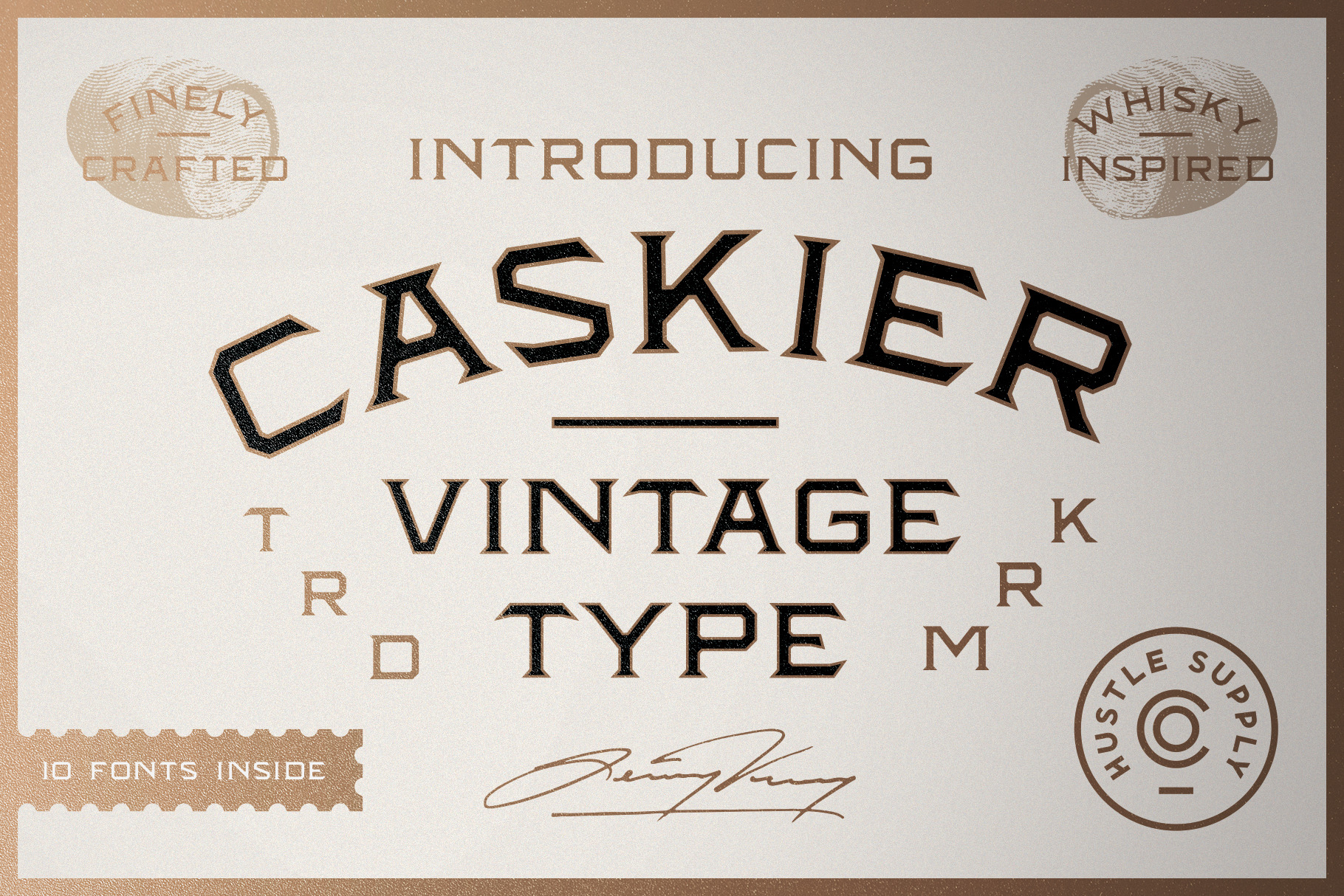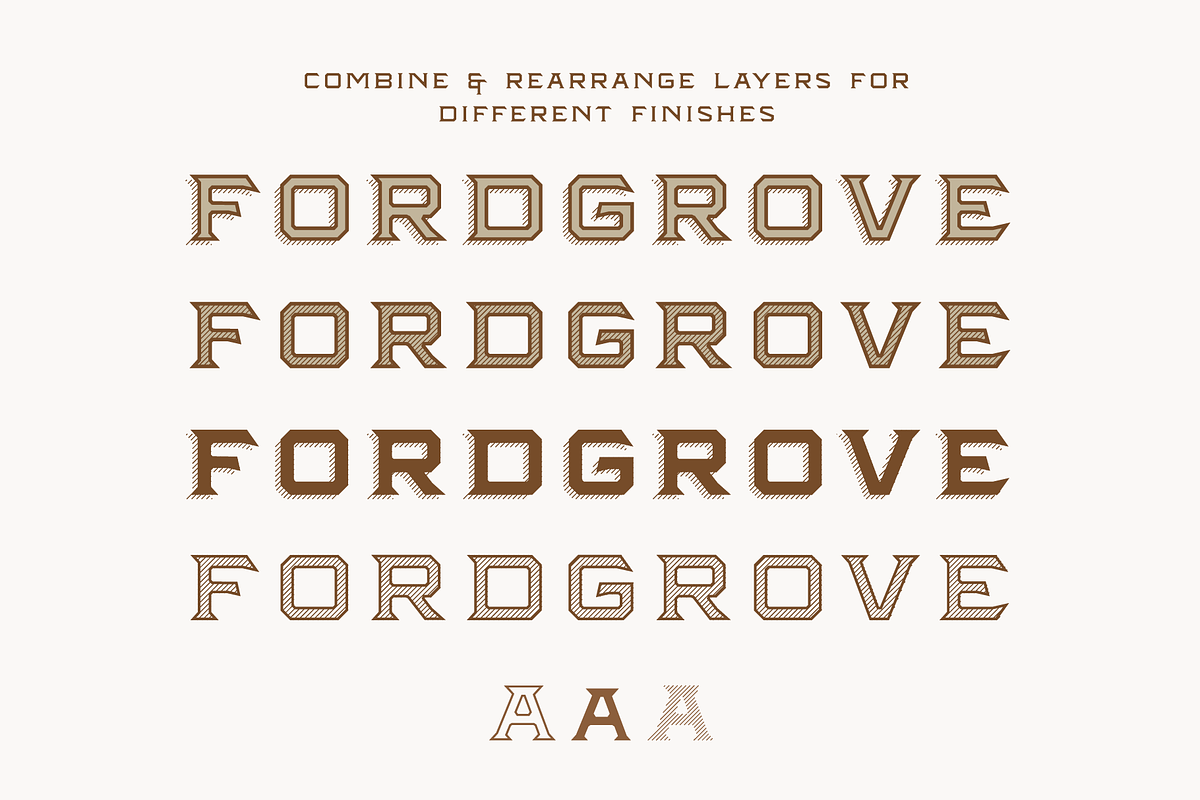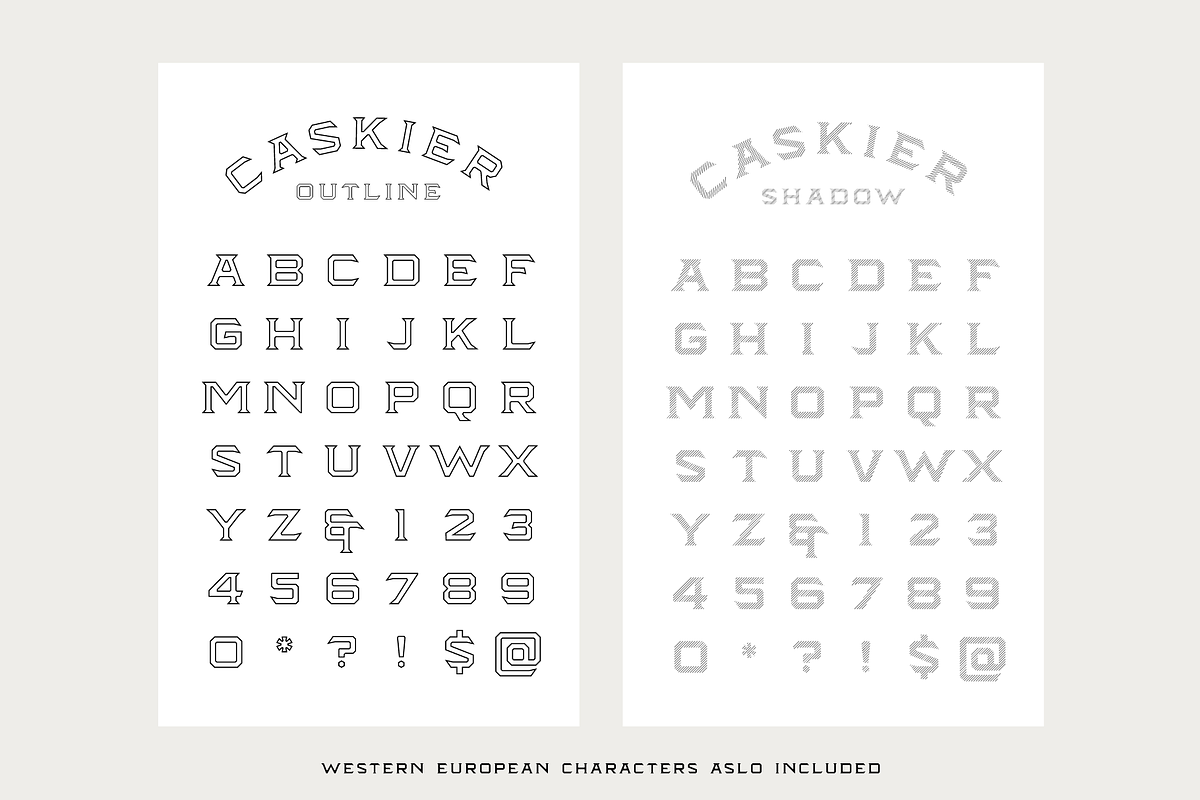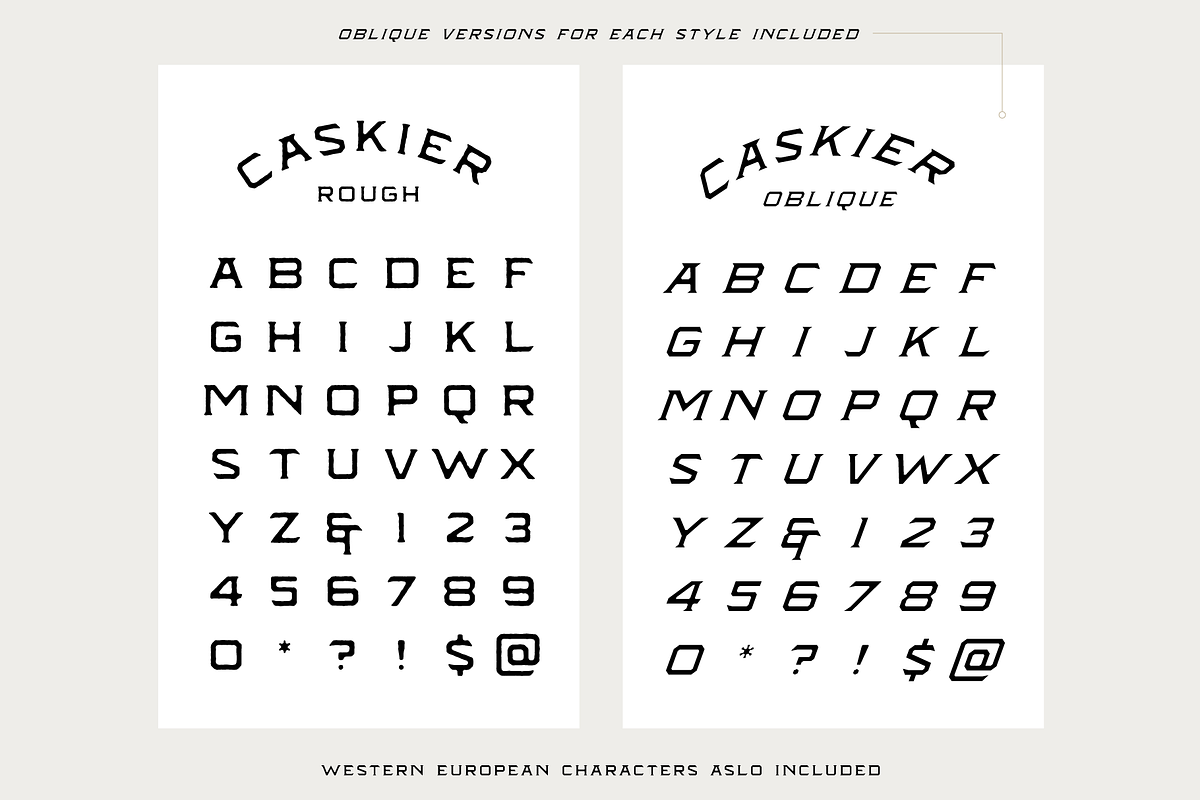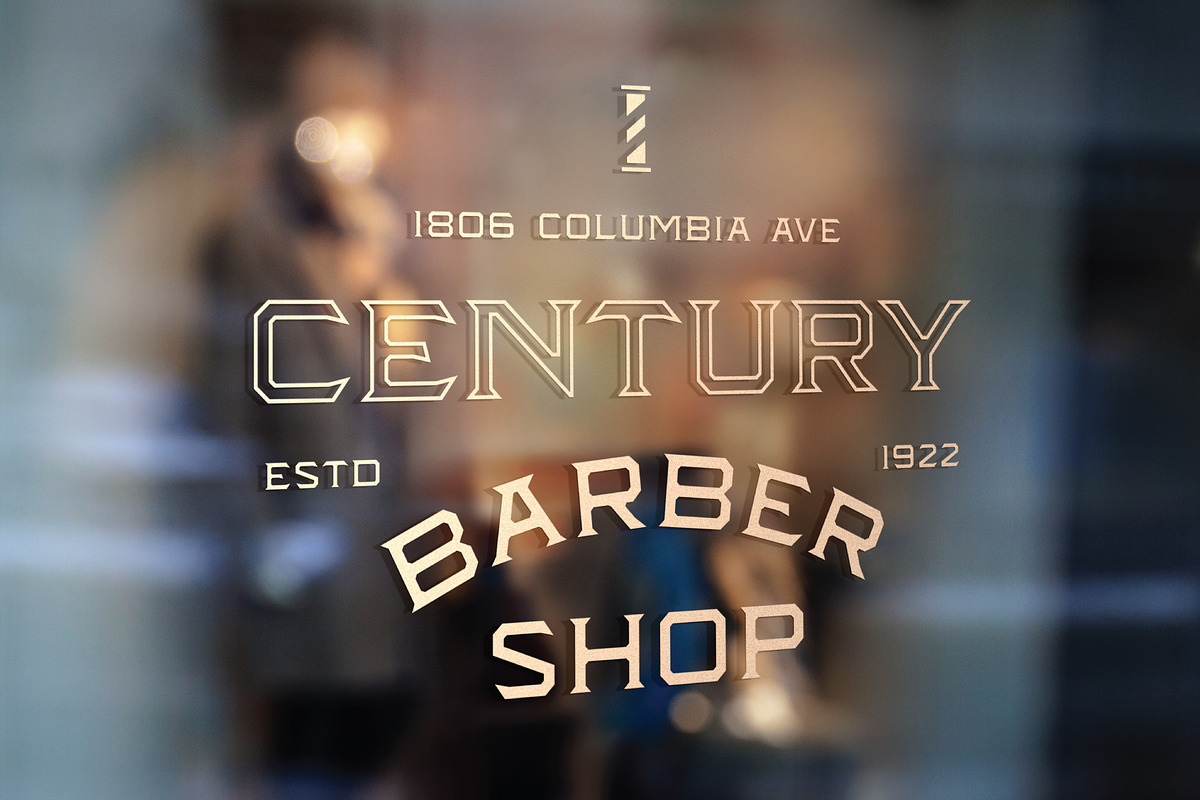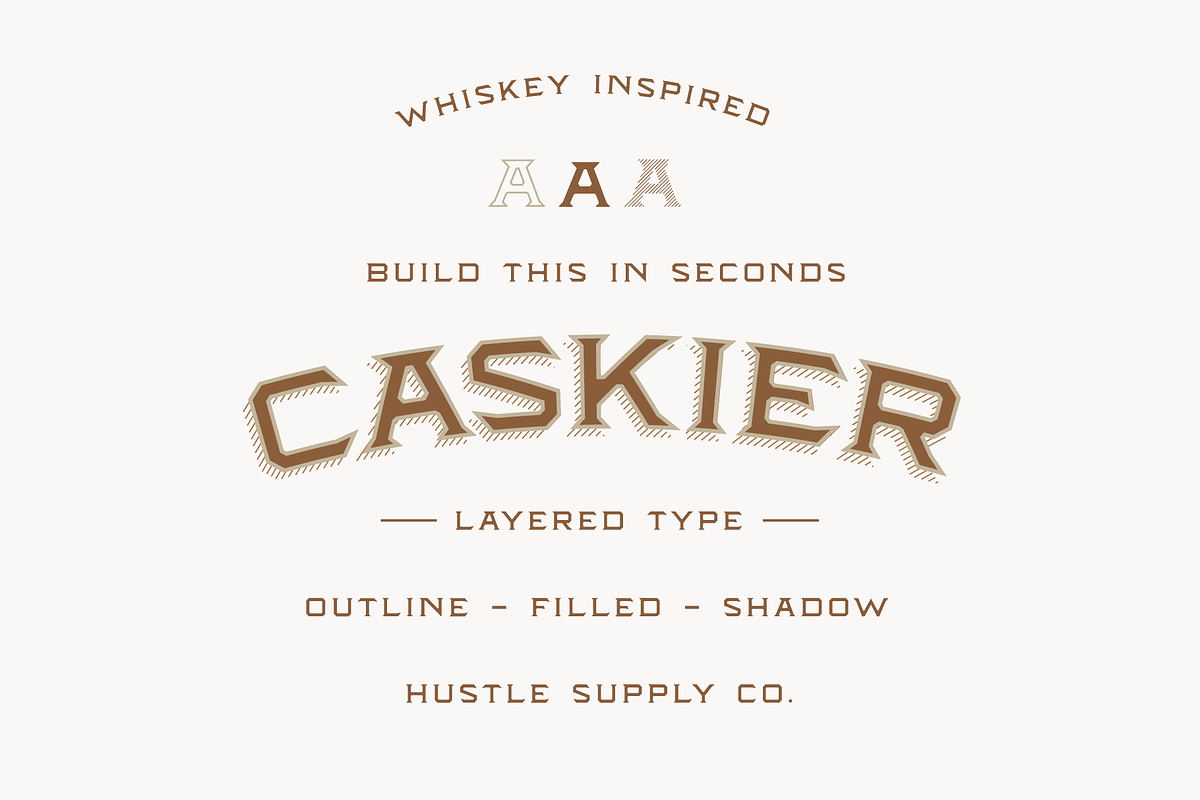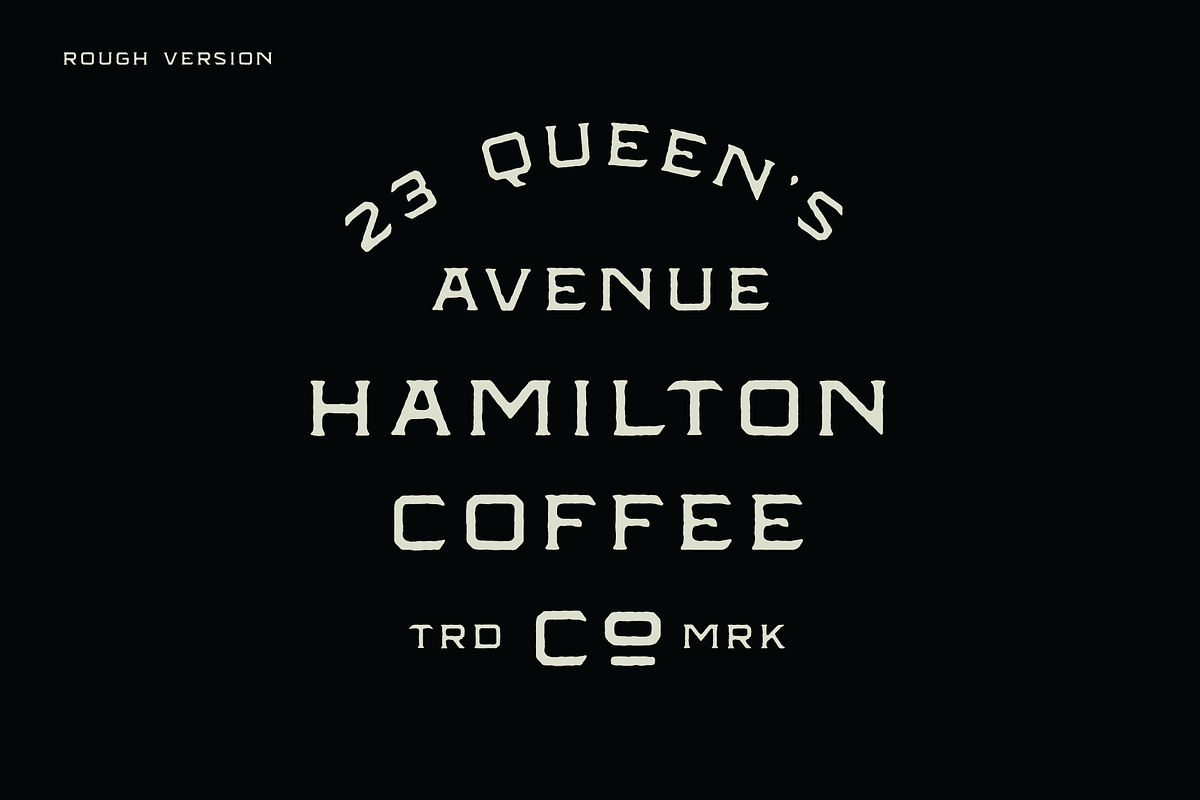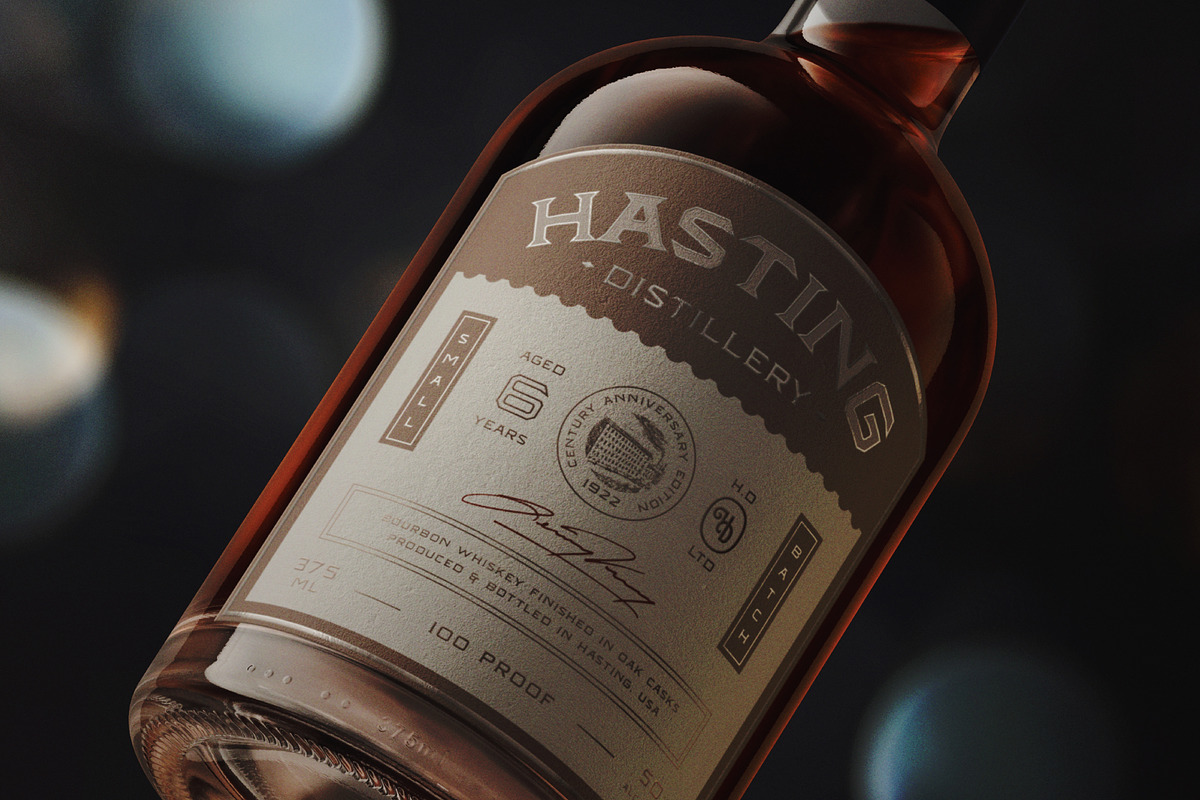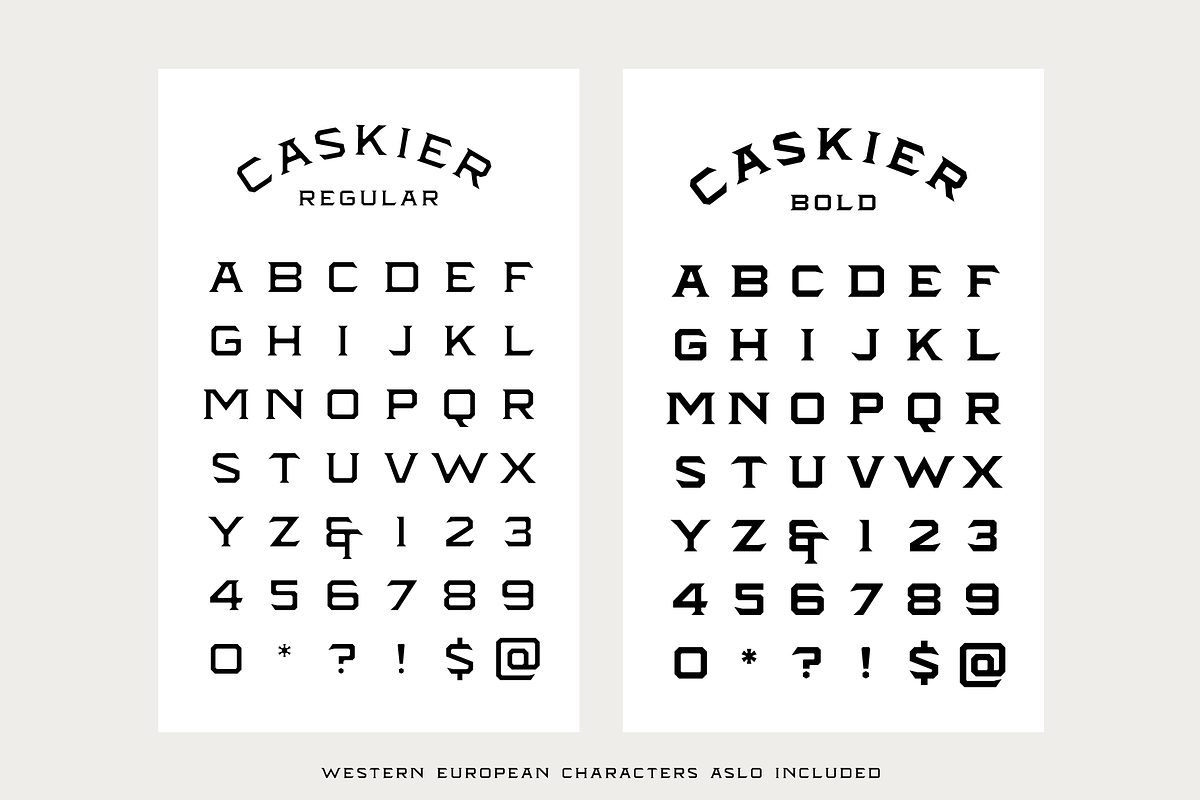
CASKIER
Caskier is a whiskey inspired layered typeface. With 10 font files, you get access to a variety of potential aesthetics ranging from clean, layered or roughened.
- Regular, Bold, Outlined, Shadow, Roughened + Oblique Versions
- A variety of ligatures